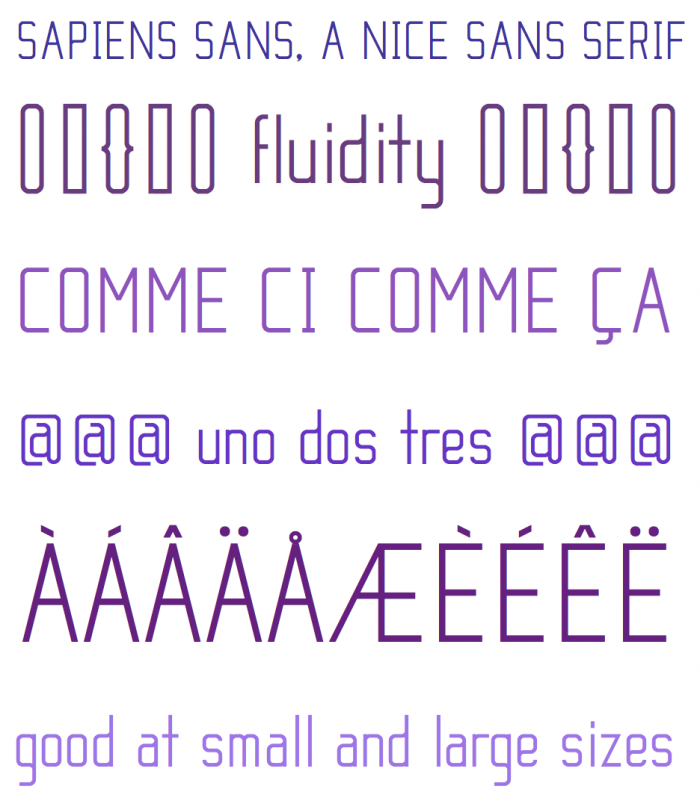
My attempt at a usable, uniform sans serif. It turned out quite blocky, and I need to work on the spacing, especially in the uppercase. Any suggestions?
I think the spacing is a little problem, but the font itself is a very nice idea. Keep up the AMAZING work. :)
larger curves here. k unbalanced, joins clogged. review bottom left of 9. nice. will attempt creating alternative letterforms. 8/10 so far
by joins clogged i mean on all the letters that have a macaroni brick intersecting with a straight brick. gets clogged.
2 fixes, top takes up 0.5 more block space, requires nudging and stacking. bottom is a quick fix, fin block.
An easy to read sans serif with a rectangular look. It will be great to see those diacritics.